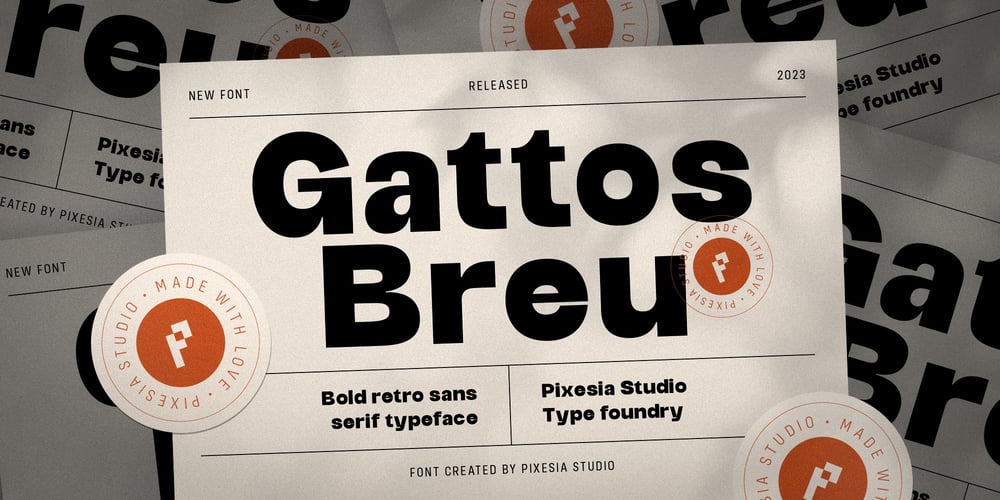
Gattos Breu Font Family was designed by Abul Almaududi and published by Pixesia Studio. Gattos Breu contains 1 styles and family package options. Introducing Gattos Breau – Modern Retro Sans SerifGattos Breau is a retro groovy display font that will make your designs pop with color and fun. It has a bold and playful style that is inspired by vintage groovy fonts and retro design. Gattos Breau is perfect for creating catchy headlines, funky stickers, cool badges, fun labels, and more. It also comes with alternates and ligatures to give your designs a unique and casual look. FEATURES- Stylistic Alternates- Ligatures- PUA Encoded- Uppercase and Lowercase letters- Numbering and Punctuations- Multilingual Support- Works on PC or Mac- Simple Installation- Support Adobe Illustrator, Adobe Photoshop, Adobe InDesign, also works on Microsoft WordHope you Like it.Thanks.